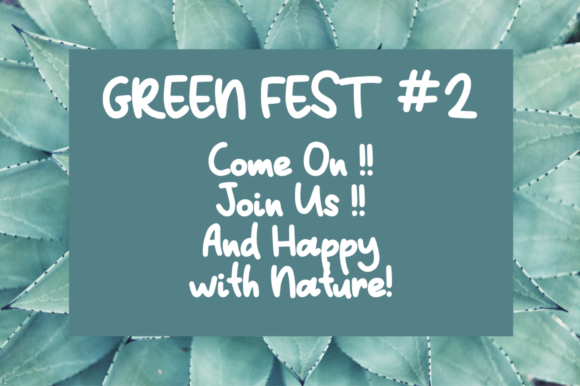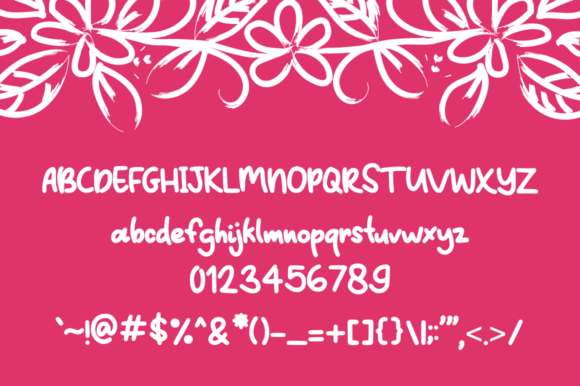
Deborah Font
db-ku.com - Script & Handwritten -- Deborah is a sweet and friendly handwritten font. Its natural and unique style makes it incredibly fitting to a large pool of designs. The only limit is your imagination!